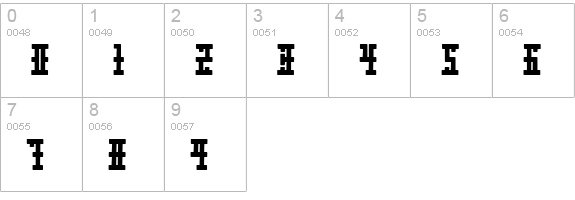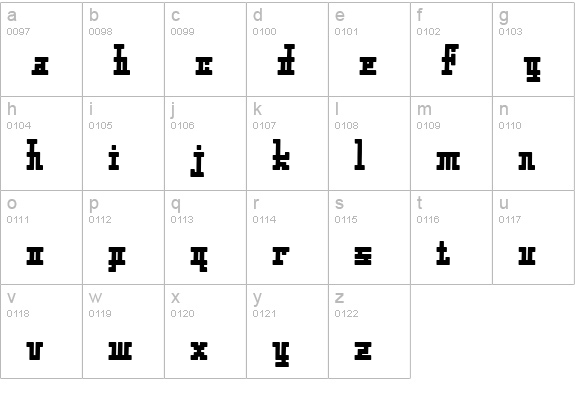
Xolto Font Details
Xolto font is a modern and stylish typeface that exudes elegance and sophistication. With its sleek lines and contemporary appeal, Xolto is perfect for a wide range of design projects, from branding to editorial layouts. This versatile font is free for personal and commercial use, making it an ideal choice for designers looking to add a touch of class to their work. Xolto font can be freely downloaded at FontsMarket.com, where users can access a wide selection of high-quality fonts for their creative endeavors. Whether you're working on a website, poster, or logo design, Xolto font will elevate your project with its clean, professional aesthetic. Don't miss out on this opportunity to enhance your designs with the elegance of Xolto font – download it today and see the difference it can make!